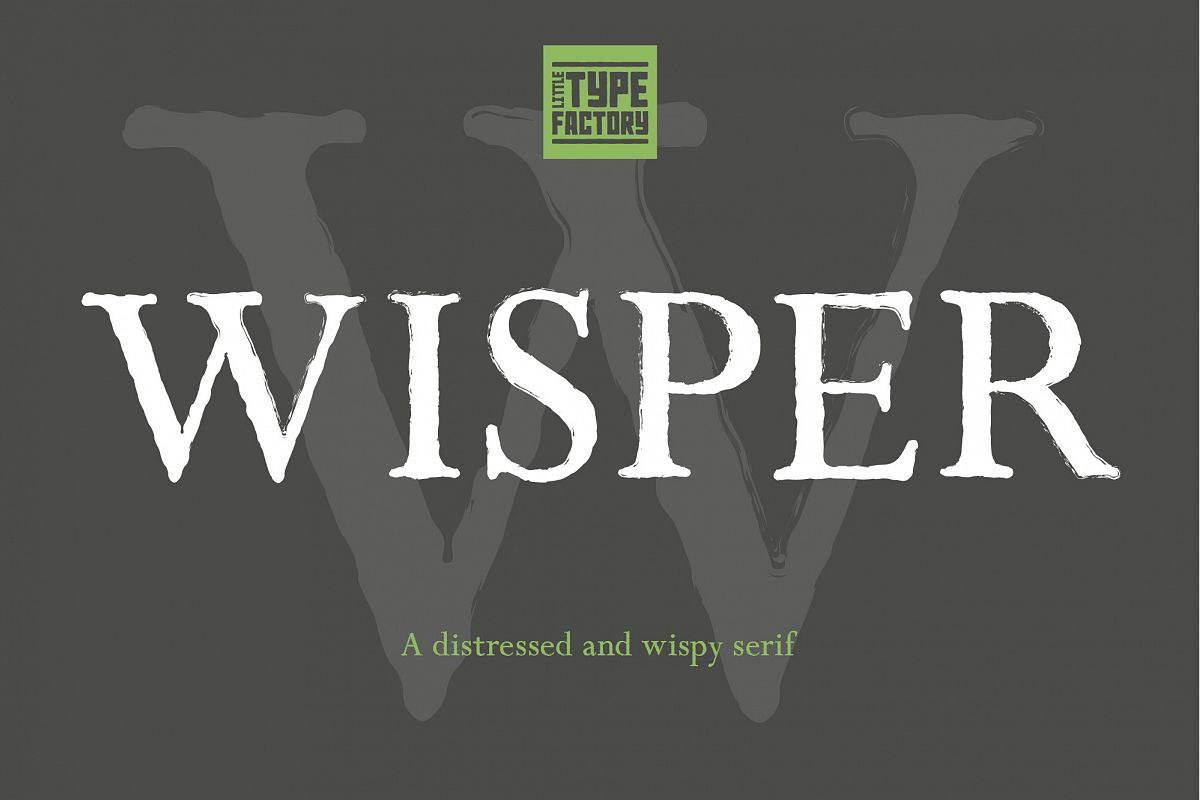
Wisper - a distressed serif font. Vintage. Rough.
Wisper font.
A vintage serif. Distressed and wispy. A little rough around the edges. Great for headings and body copy!
This traditional serif font is given an aged effect. Edges are roughened and wispy to give an old appearance.
Designed for editorial purposes but can also be used on T-shirts, mugs, posters, coasters, prints, pillows...
Full uppercase, lowercase and special characters. Includes the full European character set including western, central and south eastern glyphs.